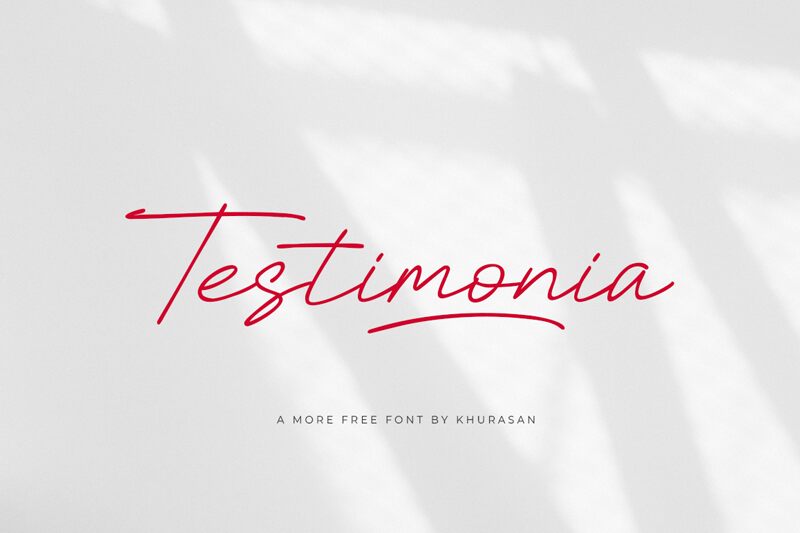
Testimonia
Testimonia, a light-weight, handwritten font created by Khurasan, offers a clean and elegant script style. With its modern and stylish design, this font is ideal for a wide range of projects.
Whether you're creating eye-catching posters, captivating logos, stunning magazine layouts, or striking book covers, Testimonia will elevate your designs to a whole new level. Additionally, it works seamlessly for banners and numerous other creative endeavors.